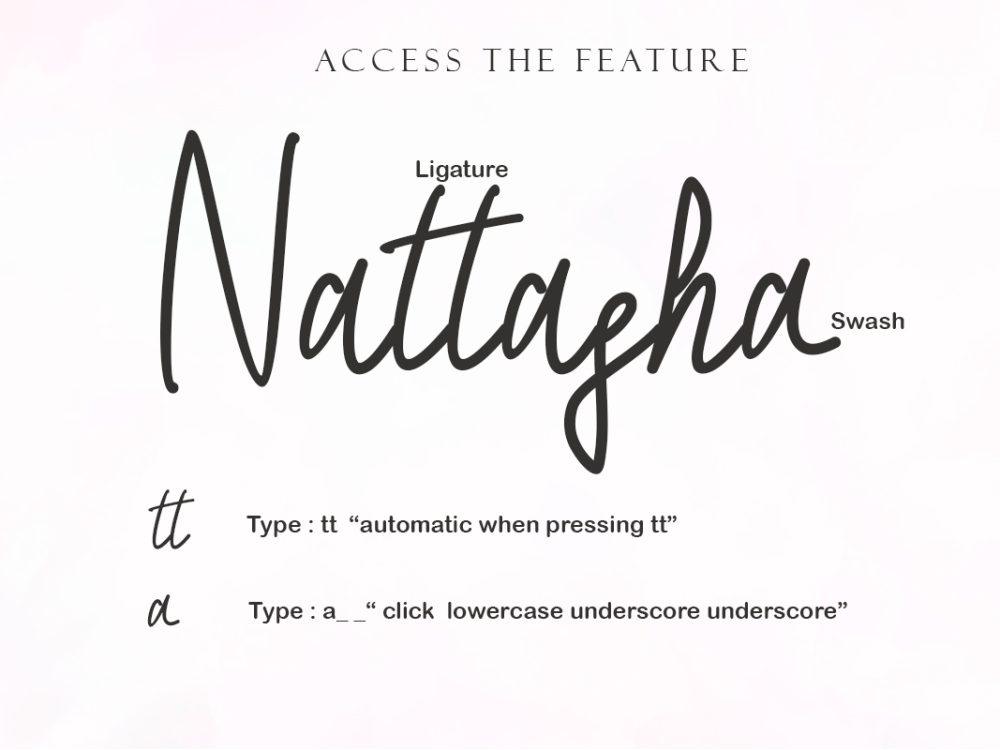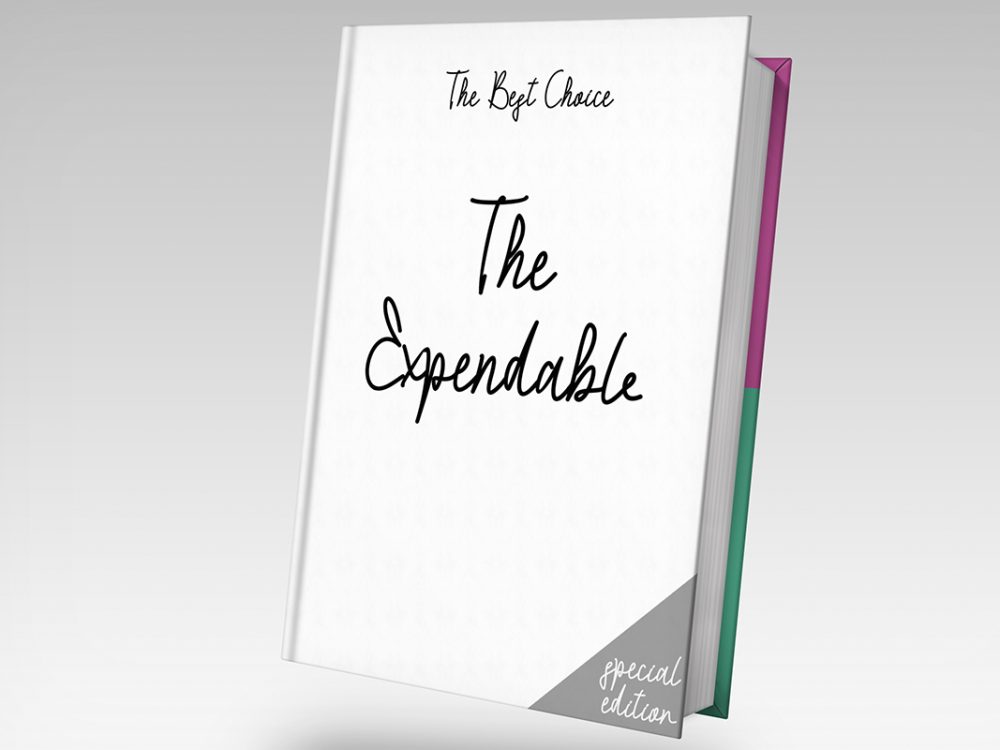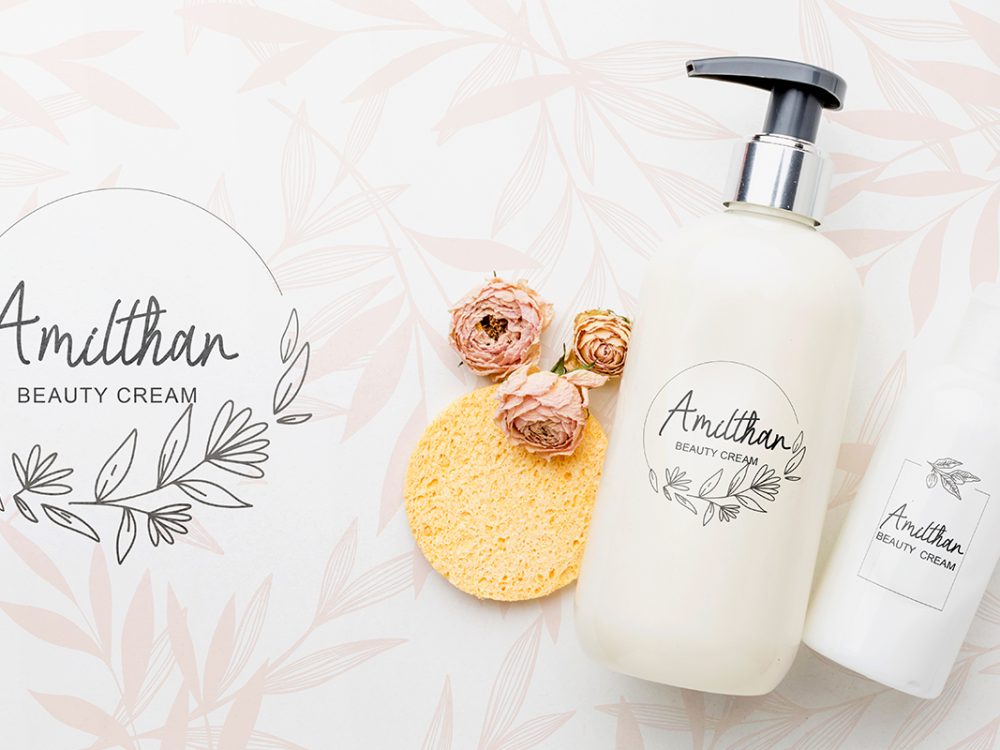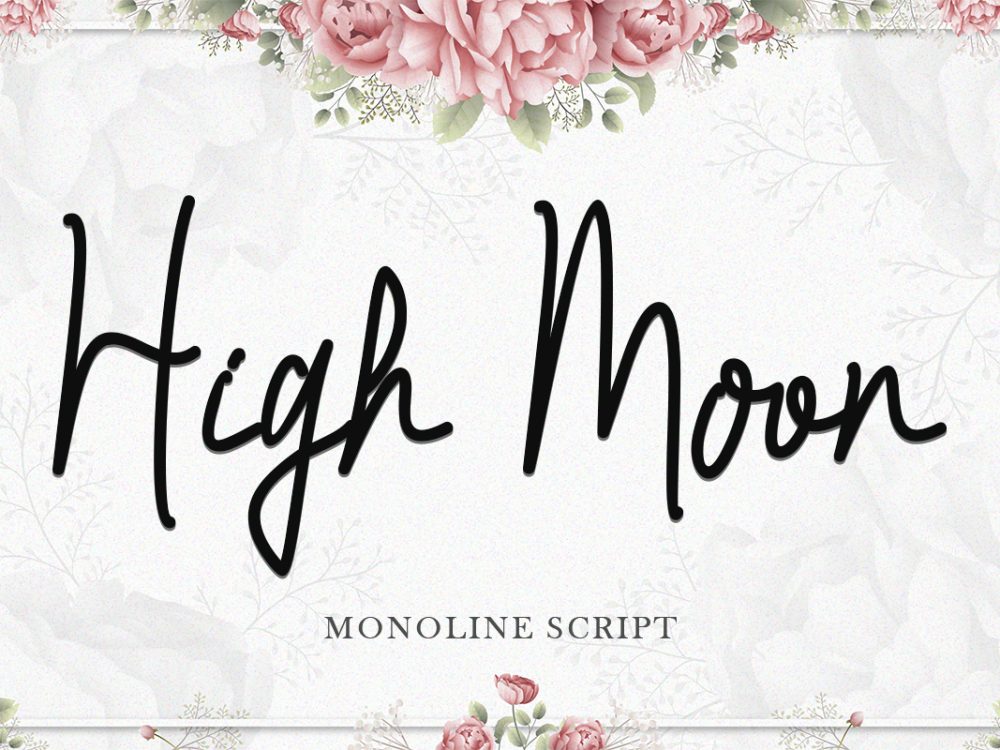
High Moon Free Font
High Moon Free Font introduces a playful and uncomplicated script font. Utilize this font in your design projects to unlock its limitless potential for creativity. If you like it don’t forget to check out the full version.